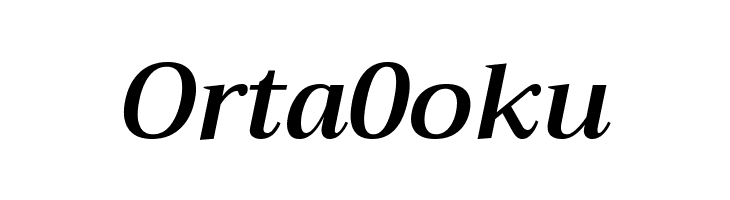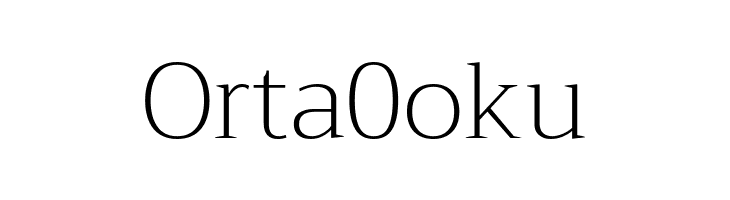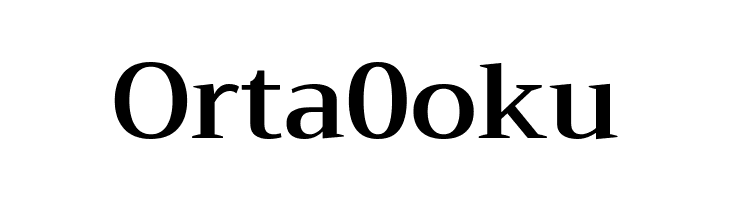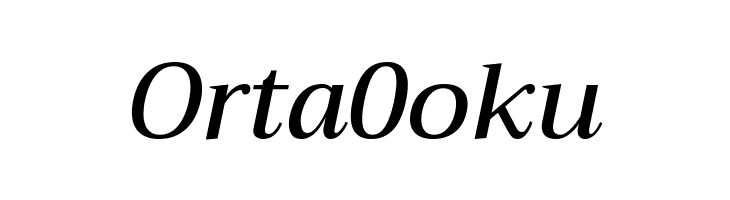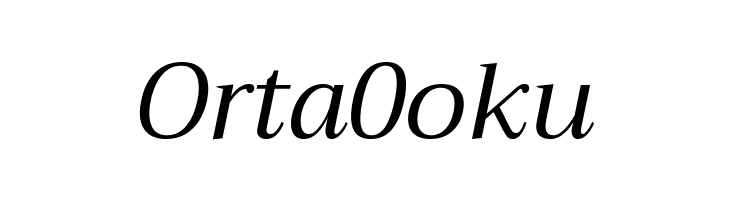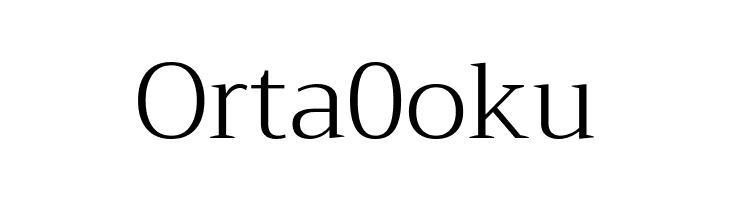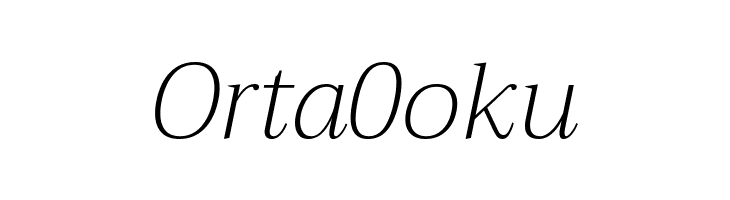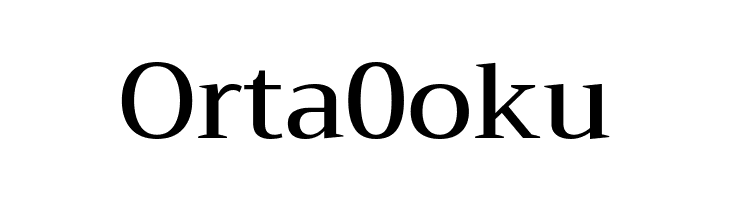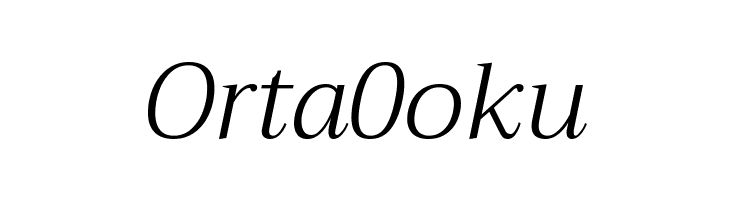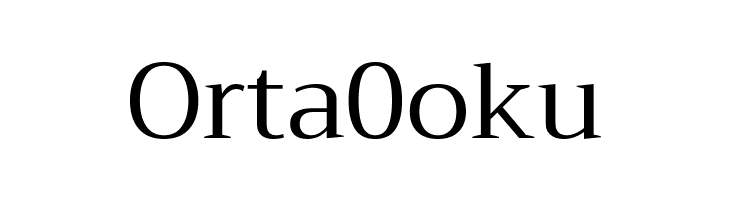
A refined serif font with thin strokes and elegant proportions.
A graceful and elegant serif font with a subtle italic slant.
An elegant serif italic font with smooth curves and a classic style.
A classic serif font with elegant strokes and balanced proportions.
A light, elegant serif font with an italic style, perfect for sophisticated designs.
A modern serif font with elegant, balanced letterforms and pronounced serifs.
A medium-weight, italic serif font with elegant, slanted characters.
A classic serif font with elegant strokes and timeless appeal.
A classic serif font with a semi-bold weight, combining elegance and readability.
A semi-bold, italic serif font with a classic and elegant style.